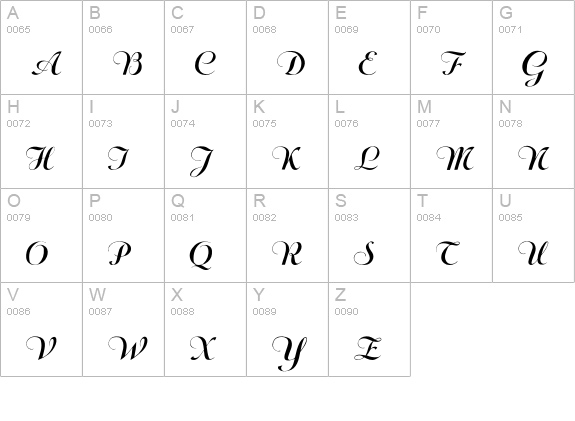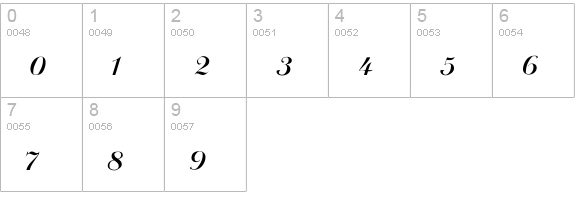
Recklman Font Details
Recklman font is a stunning typeface that embodies the perfect balance between elegance and modernity. With its clean lines and intricate details, this font is sure to capture attention and leave a lasting impression. The Recklman font is a versatile typeface that can be used for a wide range of design projects, from logo design to branding, advertising, packaging, and more. Its unique and distinctive letterforms add a touch of sophistication to any project, making it the perfect choice for those looking to make a statement. One of the best things about Recklman font is that it is completely free to download. That's right, you can get your hands on this amazing font without spending a dime. It is freely available to download at FontsMarket.com, a trusted source for high-quality fonts. Whether you're a professional designer or someone who just loves experimenting with typography, Recklman font is a must-have in your font collection. Its versatility, elegance, and the fact that it is free to download make it an irresistible choice for any design project. So go ahead, unleash your creativity and let Recklman font elevate your designs to a whole new level.